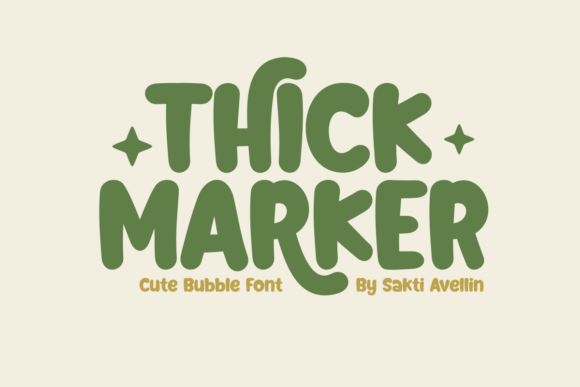
Thick Marker: The Ultimate Guide to a Playful Bubble-Typeface
In the vast landscape of digital typography, few styles capture the essence of joy and approachability quite like Thick Marker. This distinctive typeface has carved out a unique niche for itself by mimicking the look of hand-drawn lettering with a heavy marker pen. It is not merely a font; it is a design tool that instantly communicates friendliness, energy, and creativity. For designers, business owners, and hobbyists looking to inject a dose of personality into their projects, understanding the nuances of Thick Marker can transform a standard layout into something truly memorable.
The Essence of a Cheerful Design
At its core, Thick Marker is defined by its bubble-style architecture. Unlike rigid, geometric sans-serifs or traditional serif fonts, this typeface features thick, round, and friendly shapes that feel organic and human. The design philosophy behind it is simple yet effective: to evoke a sense of fun and casual interaction. When a viewer encounters text set in Thick Marker, the immediate psychological response is often one of relaxation and openness. It feels less like a corporate mandate and more like a personal invitation.
This cheerful aesthetic makes it an ideal choice for attracting a young audience. Children are naturally drawn to bold, rounded forms that resemble the doodles they create themselves. However, the appeal extends beyond just kids' content. In a world increasingly dominated by sleek, minimalist interfaces, the playful touch of Thick Marker stands out as a refreshing alternative. It signals that a brand or project is not afraid to be lighthearted, making it perfect for campaigns that require a dynamic and spirited voice.
Key Features That Define the Style
What sets Thick Marker apart from other bubble fonts is its attention to detail and versatility. One of the most significant features is the extensive variety of alternates available for both uppercase and lowercase characters. Standard fonts often present a uniform appearance, but Thick Marker offers multiple versions of the same letter. This allows designers to mix and match glyphs within a single word or phrase, creating a unique and dynamic look that avoids repetition.
- Bold Strokes: The defining characteristic is the heavy weight of the lines, ensuring high visibility even at smaller sizes.
- Rounded Terminals: Every end point is softened, eliminating sharp angles to maintain a safe, friendly vibe.
- Character Alternates: A rich library of alternate glyphs enables custom styling without needing complex vector editing.
- Casual Spacing: The kerning and spacing are designed to mimic natural handwriting, adding to the authentic feel.
These features work together to ensure that the font remains legible while retaining its artistic flair. The ability to customize the look through alternates means that no two headlines using Thick Marker have to look exactly the same, giving creators the freedom to express individuality within a consistent style framework.
Practical Applications Across Industries
The utility of Thick Marker extends far beyond simple decoration. Its robust structure and engaging personality make it suitable for a wide array of practical applications. Whether you are a professional graphic designer or a small business owner creating your own marketing materials, this font offers versatile solutions.
Branding and Merchandise
For businesses targeting families or children, Thick Marker is a powerhouse for branding. It is exceptionally well-suited for logos that need to convey trust and fun simultaneously. Imagine a logo for a new line of organic snacks for toddlers; using Thick Marker immediately tells parents that the product is kid-friendly and enjoyable. Similarly, for brands selling children's clothing, t-shirts, tote bags, or hoodies, the font serves as a central visual element that enhances the garment's appeal. The thick strokes hold up beautifully on fabric, ensuring that the design remains crisp and vibrant even after washing.
Packaging is another area where this font shines. In a crowded retail aisle, packaging needs to grab attention quickly. The bold nature of Thick Marker ensures that product names pop off the shelf. It works particularly well for items like toys, candy, or party supplies, where the primary goal is to excite the consumer before they even read the fine print.
Decorative and Promotional Materials
Beyond commercial products, Thick Marker is a staple for promotional and decorative items. Think about the ephemera of childhood: stickers, pins, and mugs. These small items rely heavily on strong visual impact, and the bubble style of this font delivers exactly that. A mug featuring a motivational quote in Thick Marker feels encouraging and warm, whereas the same quote in a formal serif might feel stiff or overly serious.
Furthermore, the font is perfect for creating tumblers, posters for children's rooms, and birthday party decorations. Parents and event planners often seek fonts that can turn a plain room or a basic table setting into a festive environment. Thick Marker achieves this effortlessly. It transforms ordinary paper into celebratory decor, making it a go-to choice for birthday invitations, banner signs, and framed prints with cheerful motivational quotes.
Evaluating Suitability for Your Projects
While Thick Marker is incredibly versatile, it is important to understand when it is the right tool for the job. Like any design element, context matters. The font's strength lies in its ability to communicate informality and joy, but this same quality can be a limitation in certain scenarios.
Ideal Scenarios:
- Target Audience is Young: If your primary demographic includes children or teenagers, this font is almost always a safe and effective bet.
- Tone is Lighthearted: Projects involving games, parties, education, or entertainment benefit greatly from the casual feel.
- Short-Form Text: Because of its heavy weight and stylized nature, Thick Marker is best used for headlines, logos, and short phrases rather than long paragraphs of body text.
Considerations and Limitations:
When evaluating Thick Marker for a project, consider the medium and the message. While it is excellent for large displays and merchandise, reading long blocks of text in a thick bubble font can be tiring for the eyes. It lacks the subtle variations in stroke width that make traditional serif fonts readable over long distances. Therefore, it should generally be reserved for display purposes.
Additionally, while the font is "cute," it may not align with brands that wish to project an image of luxury, strict professionalism, or solemnity. A law firm or a financial institution would likely find the playful shapes of Thick Marker incongruent with their brand identity. The key is to match the font's personality with the intended emotional response of the audience.
Real-World Success Stories
To visualize the potential of Thick Marker, consider a local toy store launching a summer sale. By using Thick Marker for their window decals, social media graphics, and in-store signage, they create a cohesive theme of excitement and play. The font's ability to stand out in a busy environment draws customers in. Alternatively, imagine a teacher creating classroom posters. Using Thick Marker for rules or daily schedules makes the information feel less like a list of demands and more like a friendly guide, fostering a positive learning environment.
Another compelling example is the rise of personalized gifts. Online marketplaces are flooded with custom tumblers and mugs. Sellers who utilize Thick Marker for customer names and quotes often see higher engagement because the font adds a personal, hand-crafted touch that mass-produced fonts cannot replicate. The alternates feature allows them to tweak the spelling of names slightly to fit the circular shape of a mug perfectly, showcasing the font's adaptability.
Conclusion: Embracing the Fun Factor
Thick Marker represents more than just a collection of letters; it is a vehicle for expression that prioritizes connection and joy. Its thick, round, and friendly shapes offer a refreshing departure from the sterile aesthetics often found in modern design. By leveraging its unique features, such as character alternates and bold strokes, creators can produce logos, packaging, and promotional materials that resonate deeply with their audiences.
Whether you are designing a logo for a startup toy company, decorating a child's bedroom, or crafting a motivational poster for your office, Thick Marker provides the tools to make your message stand out. It invites viewers to slow down, smile, and engage with the content. As you evaluate your next design project, remember that sometimes the most effective way to communicate is to simply have a little fun. With Thick Marker, that fun is built right into every letter.